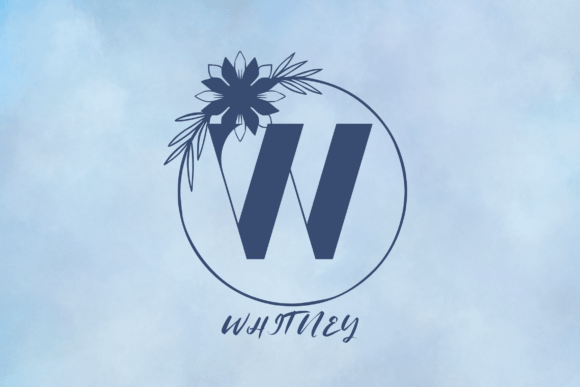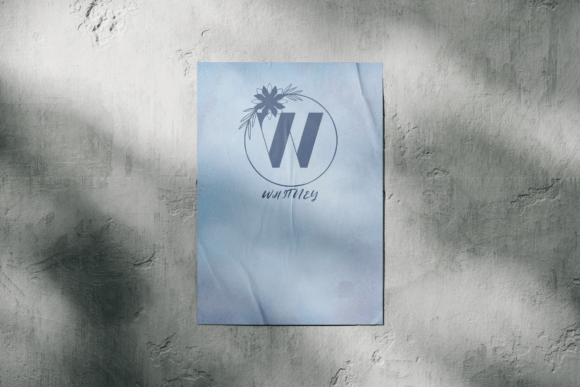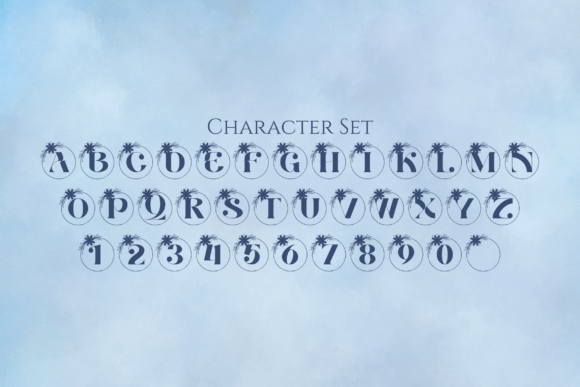
Introducing Aether Monogram Font: Elevate Your Branding and Designs with Elegance
In the realm of design, the right typography can make all the difference in creating a lasting impression. For those seeking to infuse their projects with a touch of sophistication and luxury, the Aether Monogram Font is an exquisite choice. This carefully crafted typeface is specifically designed to bring an air of elegance to monograms, logos, and bespoke branding endeavors. With its refined letterforms and intricate detailing, Aether Monogram Font stands out as the ultimate choice for designers and crafters looking to create enchanting wedding invitations, opulent branding suites, upscale stationery, and tailor-made crafts.
The Essence of Aether Monogram Font
Aether Monogram Font is more than just a typeface; it’s a design experience. Its creation was driven by the desire to provide a font that not only embodies elegance but also offers versatility and practicality. Each letterform in Aether Monogram Font has been meticulously designed to ensure that it can stand alone or complement others in a harmonious blend of style and functionality. This font is perfect for:
- Wedding Invitations: Create stunning wedding invitations that set the tone for an unforgettable event. The elegant and refined nature of Aether Monogram Font makes it ideal for wedding designs.
- Branding Suites: Elevate your brand with a sophisticated and luxurious feel. From business cards to letterheads, Aether Monogram Font can help you establish a cohesive and upscale brand identity.
- Stationery: Add a touch of class to your stationery, whether it’s for personal use or as part of a professional branding package.
- Tailor-made Crafts: Design unique and personalized crafts that showcase your creativity and attention to detail.
Why Choose Aether Monogram Font?
There are several reasons why Aether Monogram Font should be your go-to choice for your design projects:
- Unique Design: Aether Monogram Font boasts a unique design that sets it apart from more generic typefaces. Its intricate detailing and refined letterforms ensure that your designs stand out.
- Versatility: This font is incredibly versatile, making it suitable for a wide range of applications, from digital designs to print materials.
- Ease of Use: Despite its sophisticated appearance, Aether Monogram Font is easy to use, even for those with basic design skills.
- Customization: With Aether Monogram Font, you have the flexibility to customize your designs to fit your specific needs, ensuring that your projects are truly one-of-a-kind.
Tips for Using Aether Monogram Font
To get the most out of Aether Monogram Font, consider the following tips:
- Mix and Match: Don’t be afraid to experiment with different letterforms and sizes to create visually appealing combinations.
- Color Selection: Choose colors that complement the elegance of Aether Monogram Font. Neutral tones like gold, navy blue, and soft pastels work well.
- Pair with Simplicity: For maximum impact, pair Aether Monogram Font with simpler design elements to ensure that the typography remains the focal point.
Aether Monogram Font is a game-changer for designers and crafters looking to elevate their projects with a touch of elegance and sophistication. Its unique design, versatility, and ease of use make it an invaluable tool in your design arsenal. Whether you’re creating wedding invitations, branding suites, or tailor-made crafts, Aether Monogram Font is sure to impress. Immerse yourself in the world of elegance and discover the endless possibilities that Aether Monogram Font has to offer.